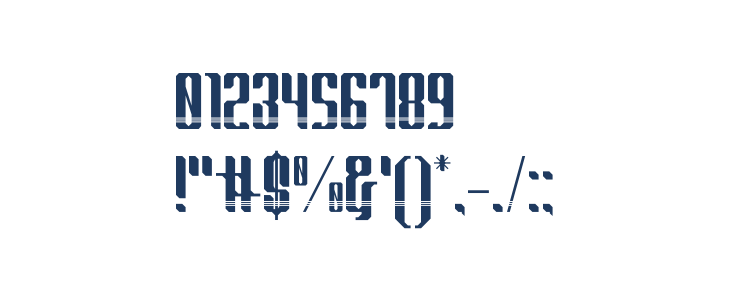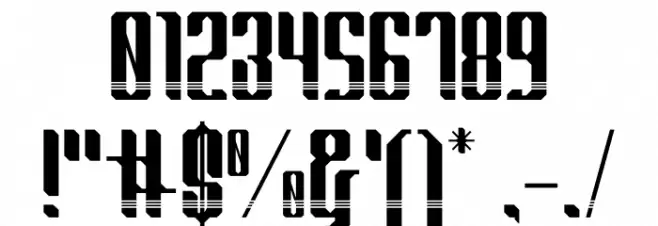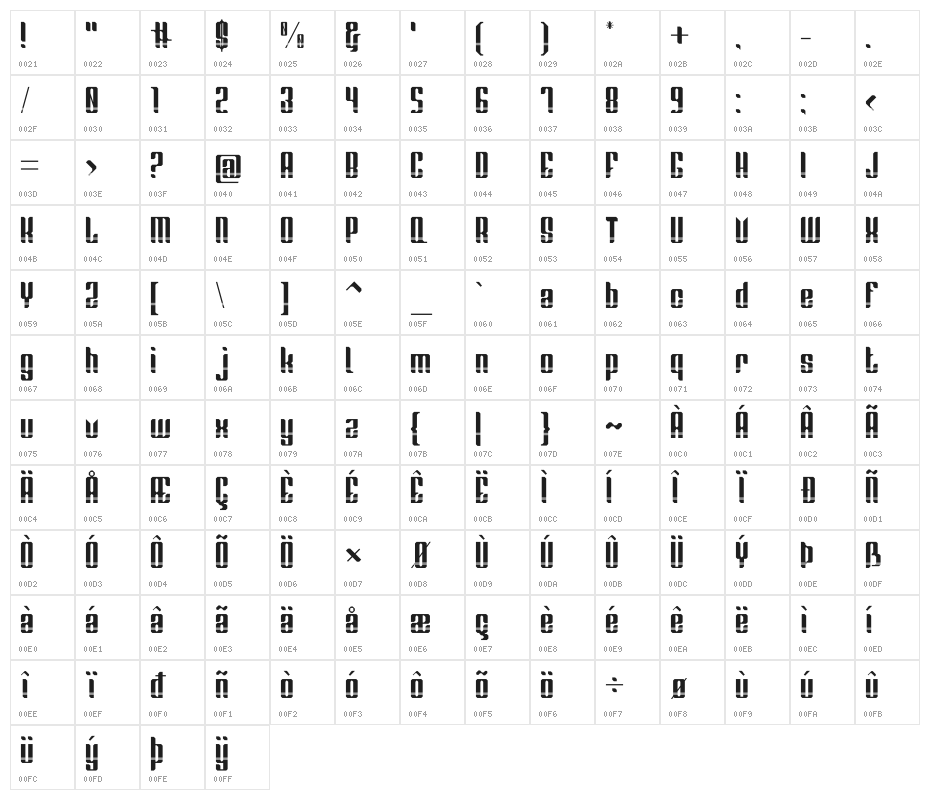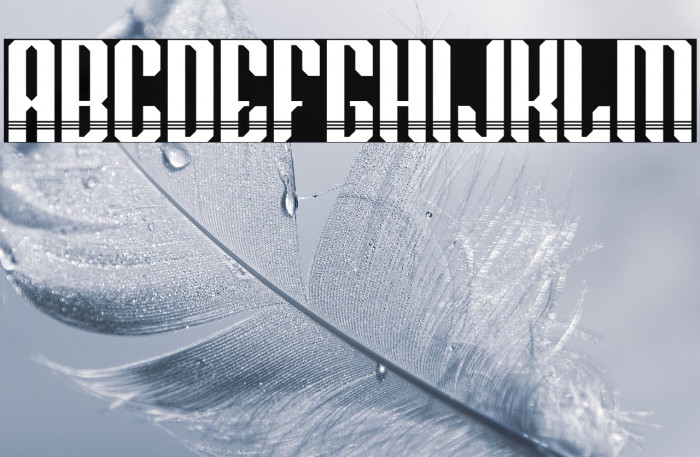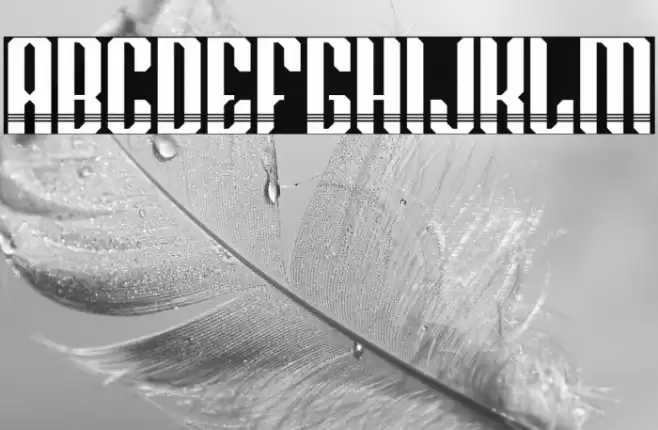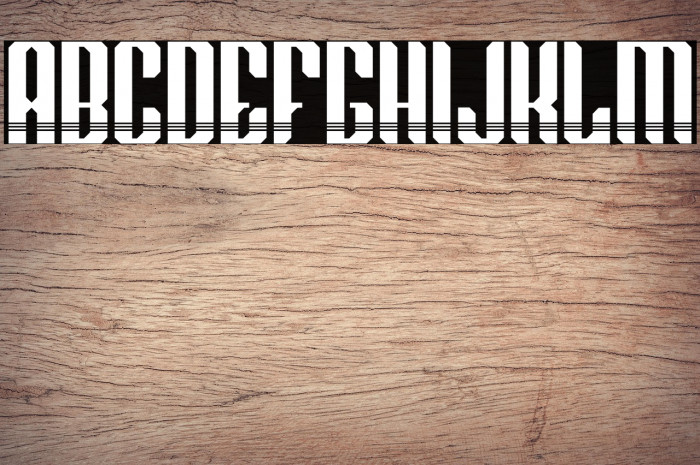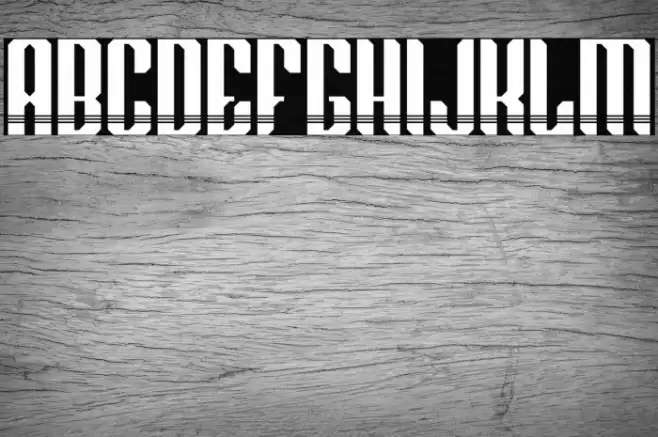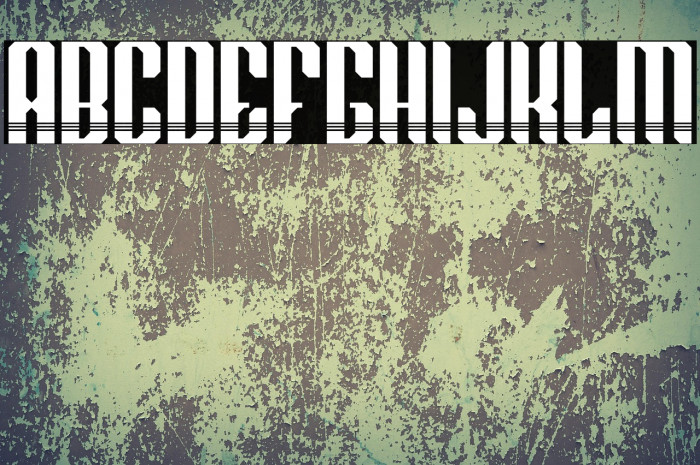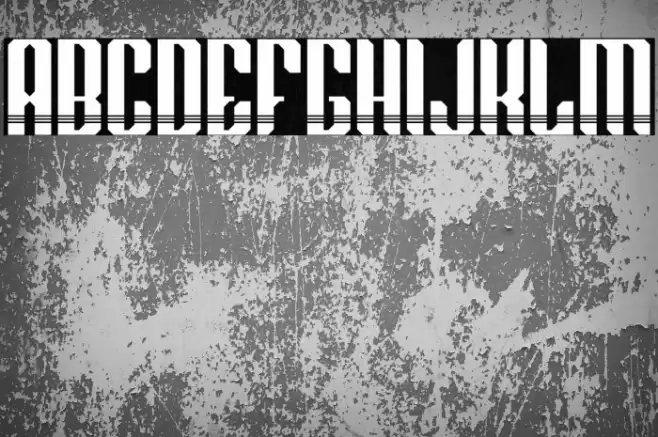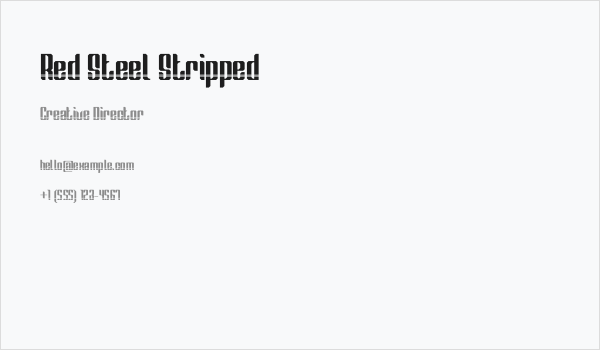
Red Steel Stripped Font
Red Steel Stripped Description
This font features a bold, industrial design with a unique striped pattern running horizontally through each character. The uppercase and lowercase letters maintain a consistent geometric structure, giving the font a modern and mechanical appearance. The numbers and special characters follow the same design principles, ensuring uniformity across all glyphs. The sharp edges and clean lines contribute to its striking visual impact, making it suitable for attention-grabbing designs. The font's distinct style is reminiscent of industrial and futuristic themes, ideal for projects that require a strong and bold typographic presence.
| Proposed Projects | Ideal for branding, posters, video game titles, and industrial-themed designs. |